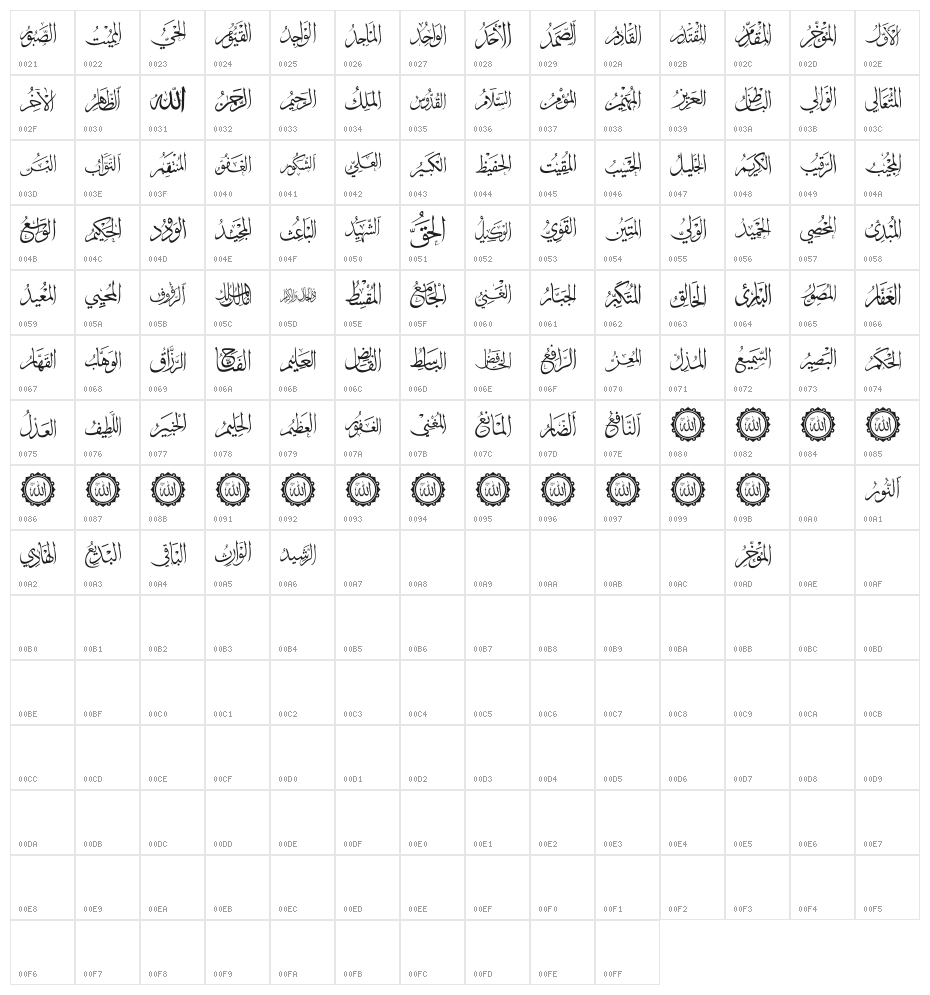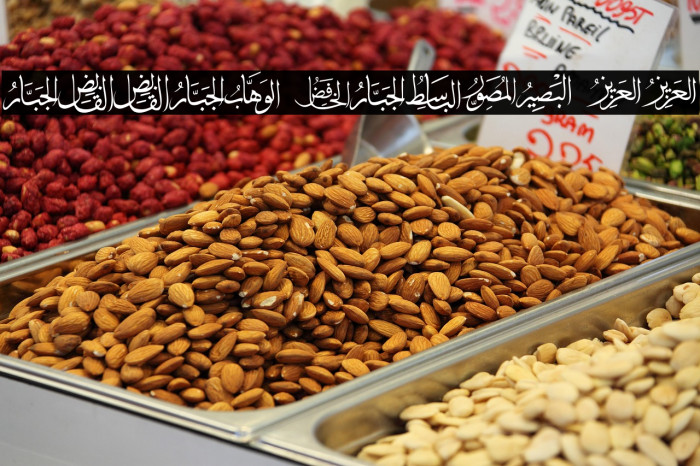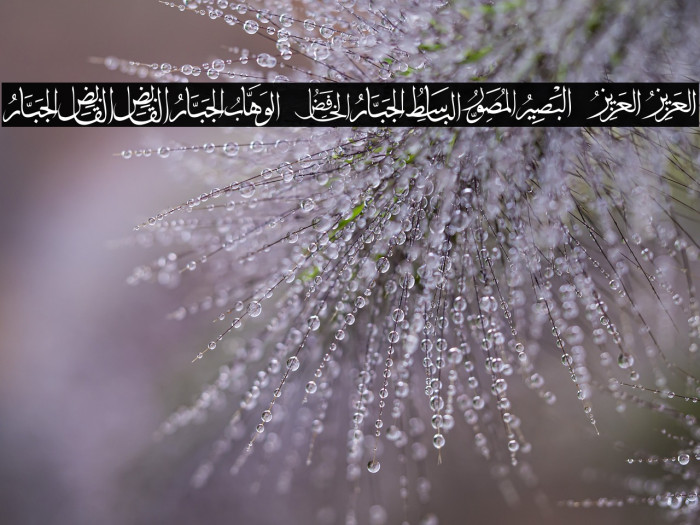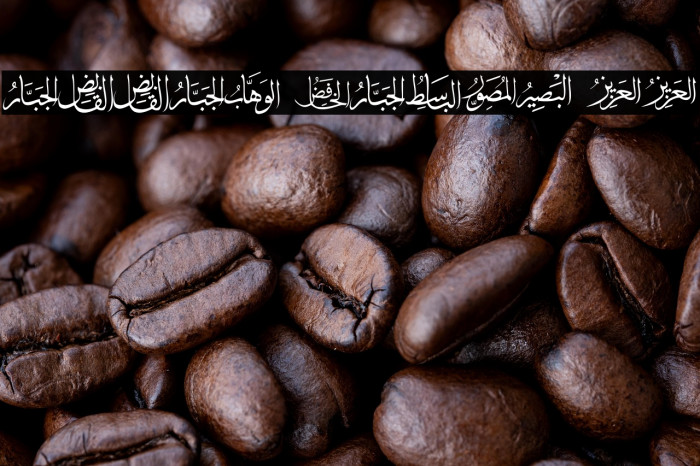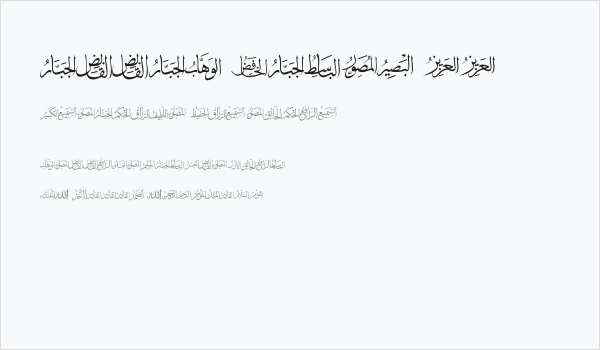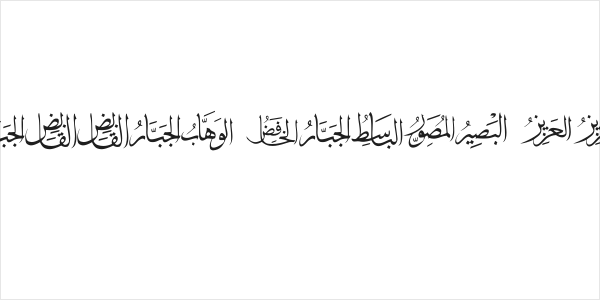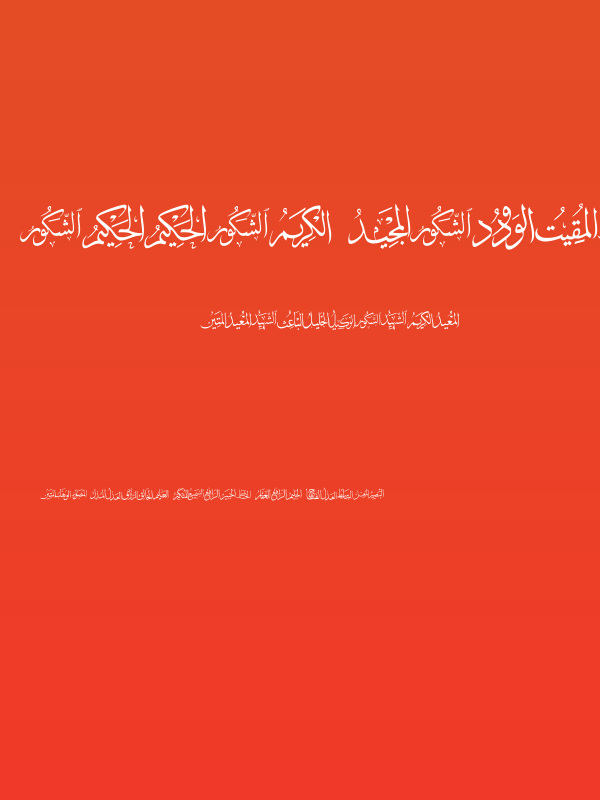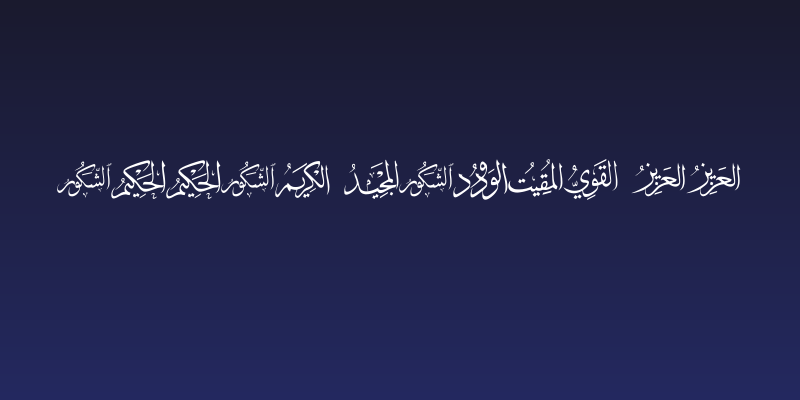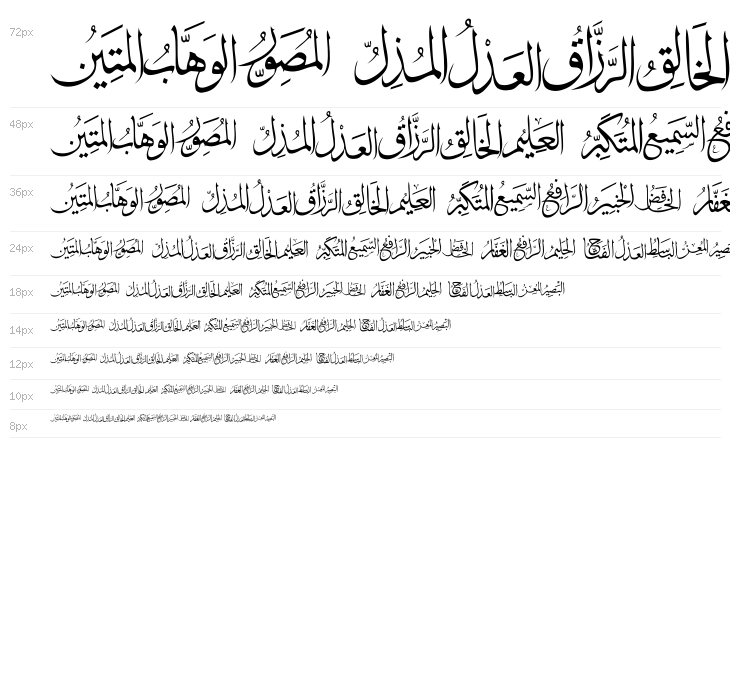
allah names 99 Font
allah names 99 Description
This font is a beautifully crafted Arabic script that exudes elegance and tradition. The characters are intricately designed with a flowing style that captures the essence of classical Arabic calligraphy. Each letter is meticulously formed, showcasing a balance between thick and thin strokes, which adds a dynamic contrast to the overall appearance. The script maintains a harmonious rhythm, making it visually appealing and easy to read. The font's ornate details and graceful curves reflect a deep cultural heritage, making it suitable for formal and religious texts. Its aesthetic appeal is enhanced by the precise alignment and spacing, ensuring clarity and readability.
| Use Case | Religious texts, Formal documents |
| Proposed Projects | Ideal for religious texts, formal invitations, cultural publications, and decorative art pieces. |